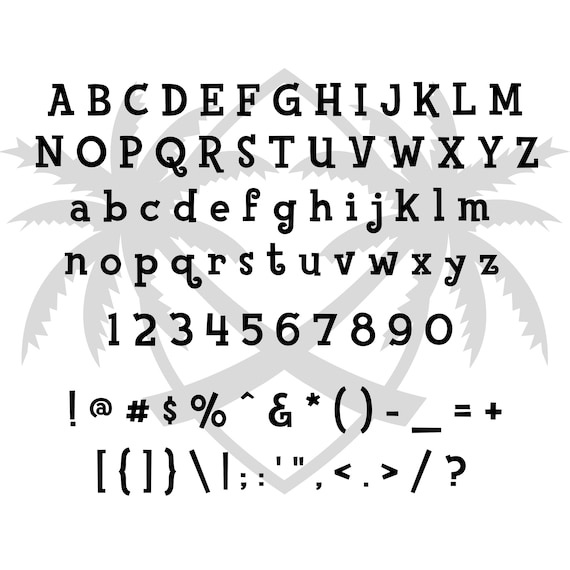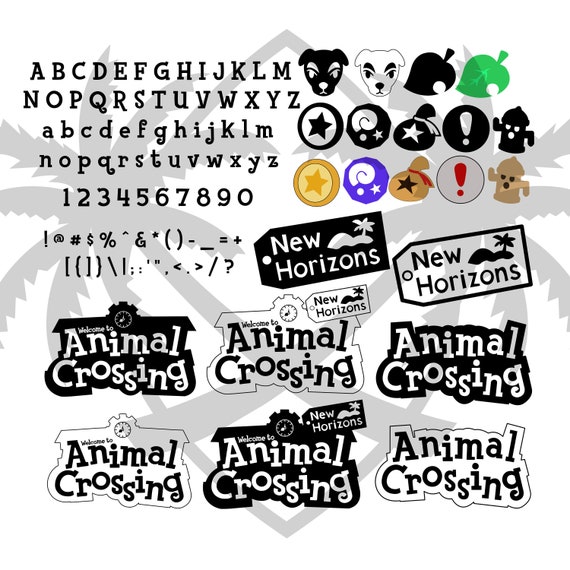
The game title combines House Industries Rat Fink Heavy with Calvert Bold a slab serif typeface designed by British designer Margaret Calvert in 1980 for Monotype.
This font is a classic comic unique design script as well as its letters are elementary and uncomplicated to. Create Date April 8 2021. In the game the player lives in a village inhabited by anthropomorphic animals carrying out various activities.
Pocket Camp is a free-to-play social simulation mobile game in Nintendos Animal Crossing series for iOS and Android devices. Animal Crossing Font The designing company of Fink Heavy Font put an outstanding touch on each letter that you have never seen before. Animal Crossing is a community simulation video game series developed and published by Nintendo.
The iconic game title uses a commercial font called Fink Heavy which you can purchase on House Industries. Animal Crossing is a community simulation video game series developed and published by Nintendo. Free Animal Crossing Font You Will Want To Use in Everyday Life.
In the game the player lives in a village inhabited by anthropomorphic animals carrying out various activities. The smallest I got down two was 3x3 but 3x4 was a much cleaner result. Animal Crossing Font Features This moderately rounded typeface alongside its massive styling and detailed facets is an excellent kit for special designing approaches.
Tiny fonts for custom designs. The font used for the game title is probably Fink Heavy a comic font from House Industries. File Size 1746 KB.
Animal Crossing font. Lets have a look at the font lettering pictures to get a final thought regarding the texture of the typeface.